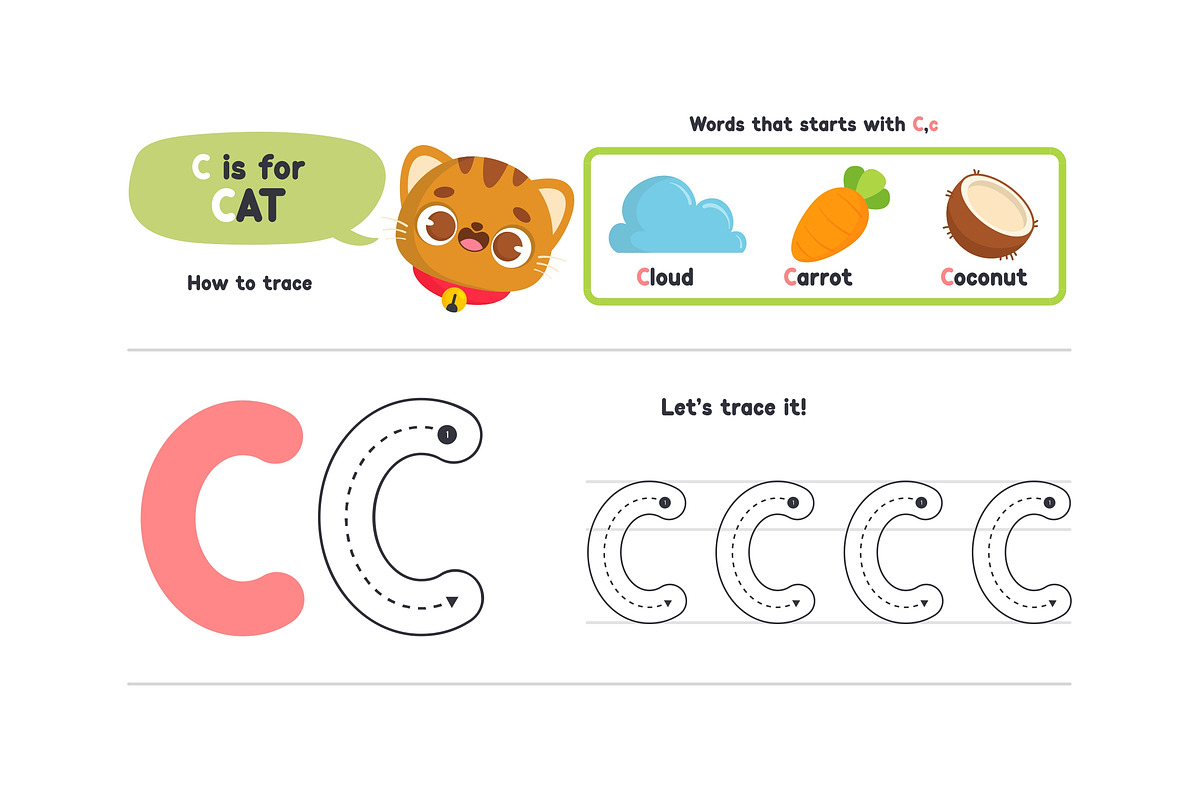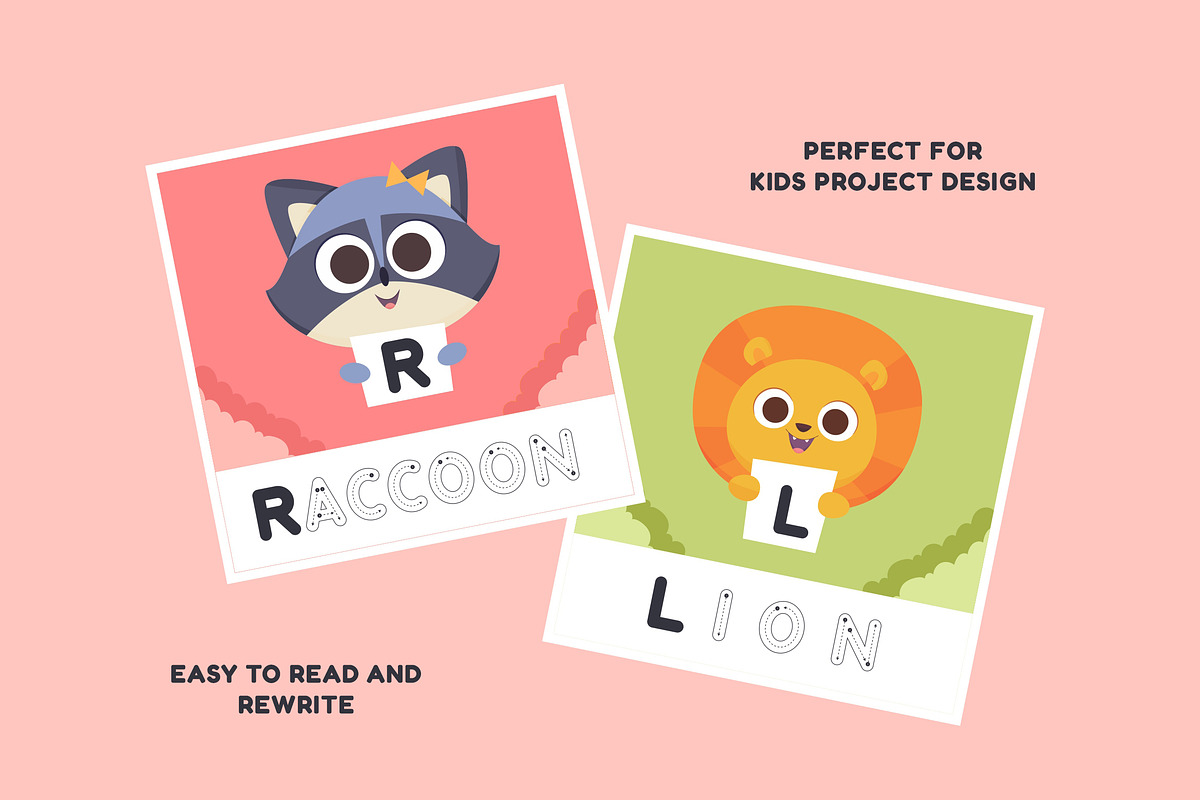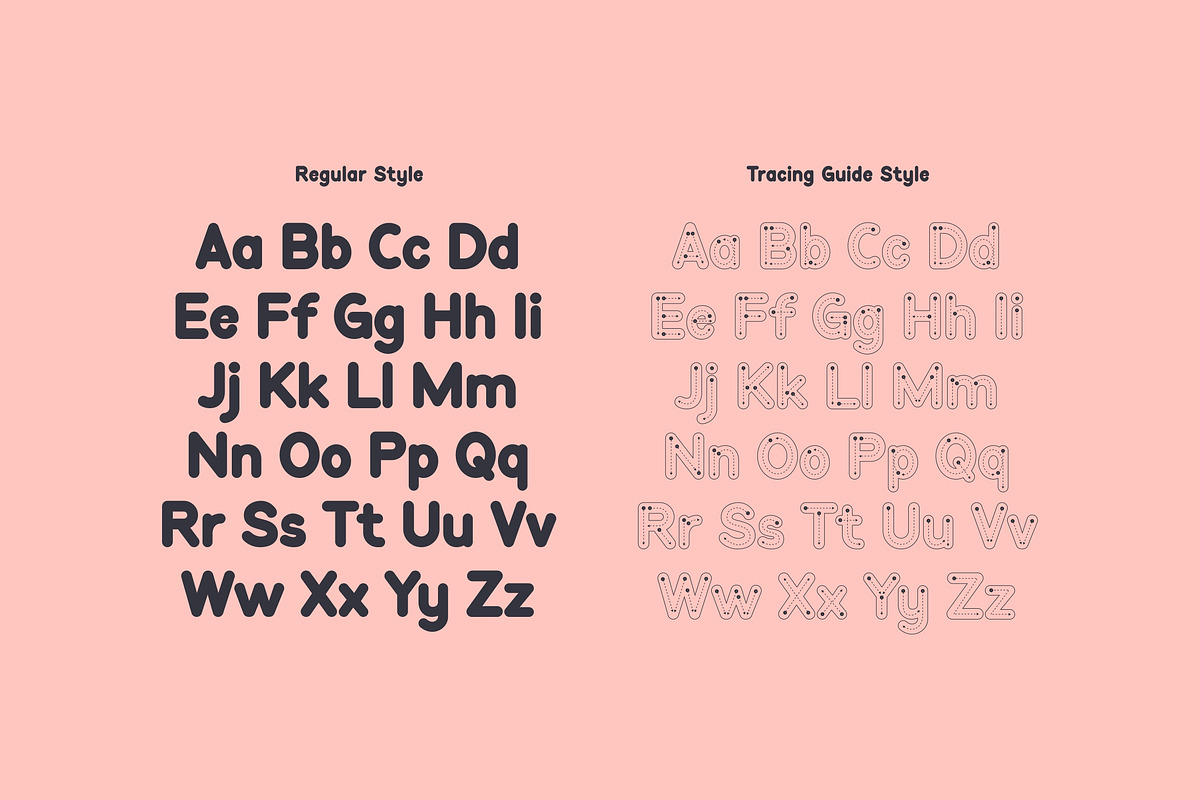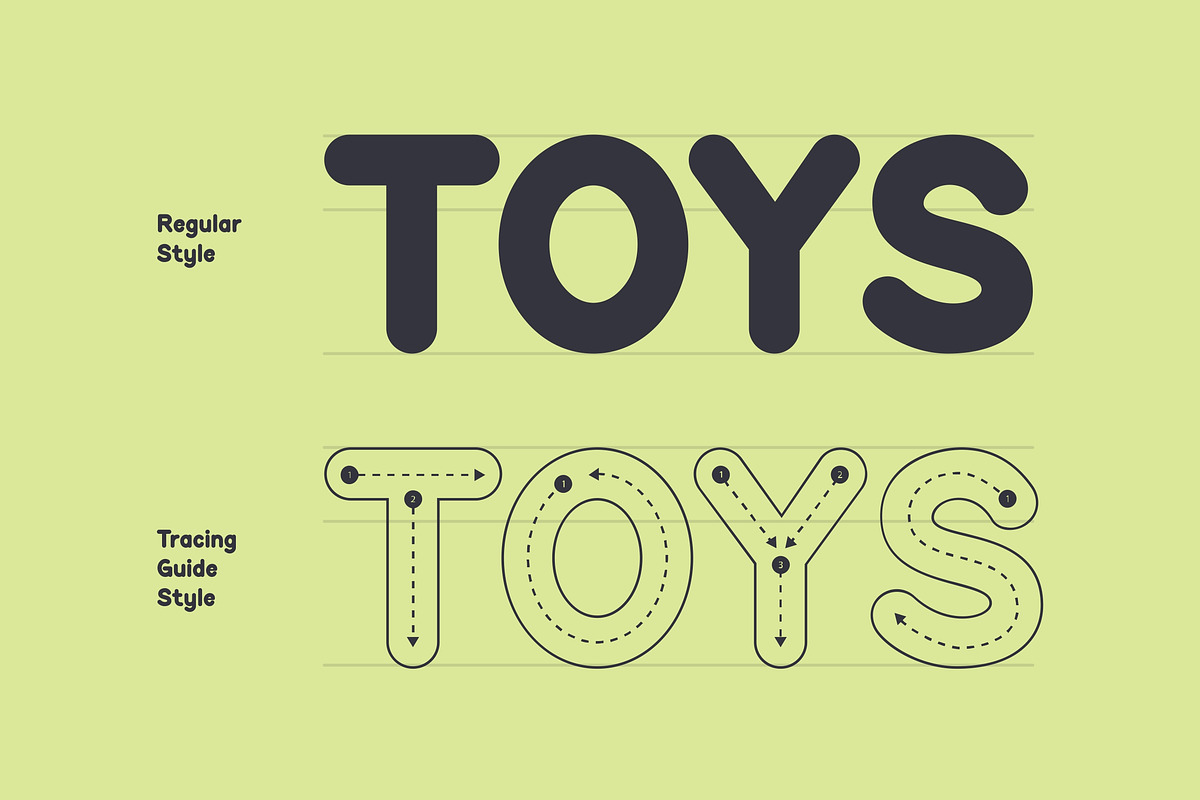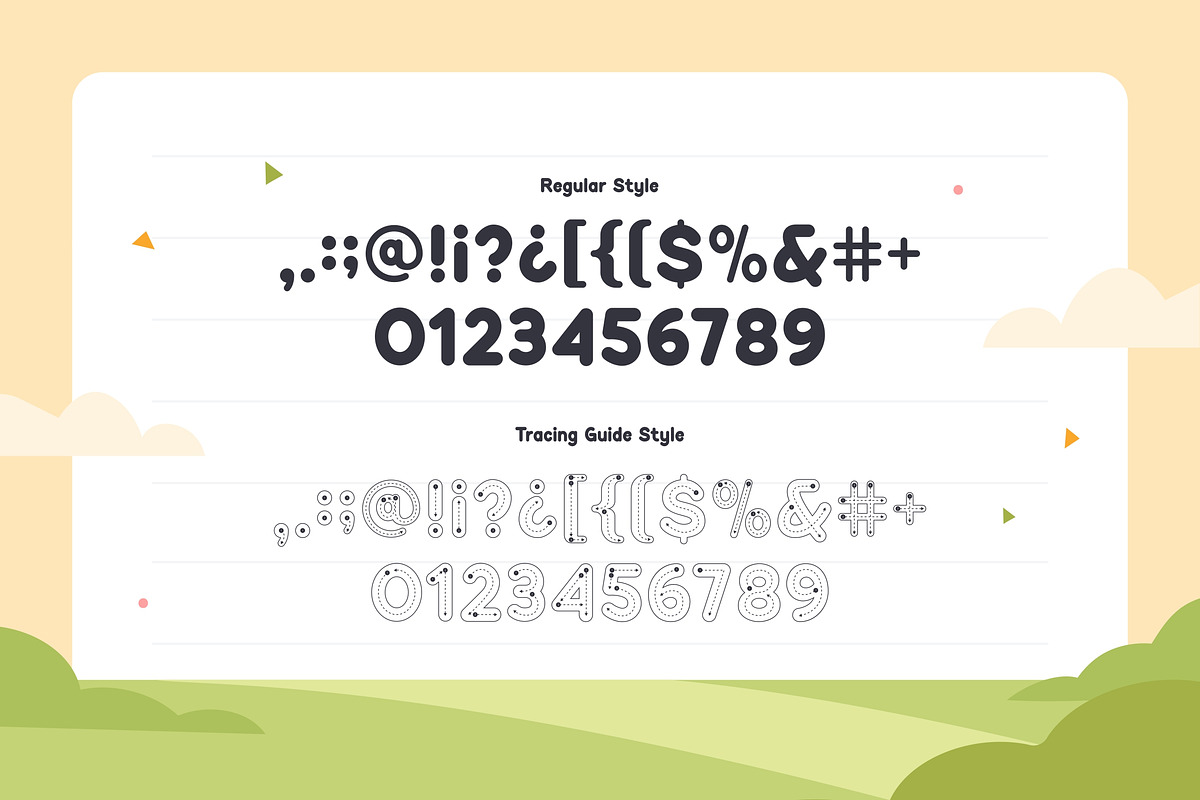
Kidos - Kids Bold & Tracing Letters
Introducing 'KIDOS' is a kids font with tracing guide style. KIDOS showcases two styles of a children's font: a "Regular" and a "Tracing Guide". The Regular style is playful and friendly, designed for easy readability with its consistent stroke weight and rounded forms, making it ideal for children learning to read. The Tracing Guide style features the same characters but includes dotted lines and arrows to teaching children the correct formation of letters, promoting motor skills and handwriting development.
This font is excellent for teaching young learners how to write the alphabet themselves. Teachers and parents can use this font in educational materials, worksheets, and activities to make the alphabet learning process more enjoyable and effective.
It is perfect for headings, flyer, greeting cards, product packaging, children's book, printed quotes, kids project design, poster, educational design, etc.